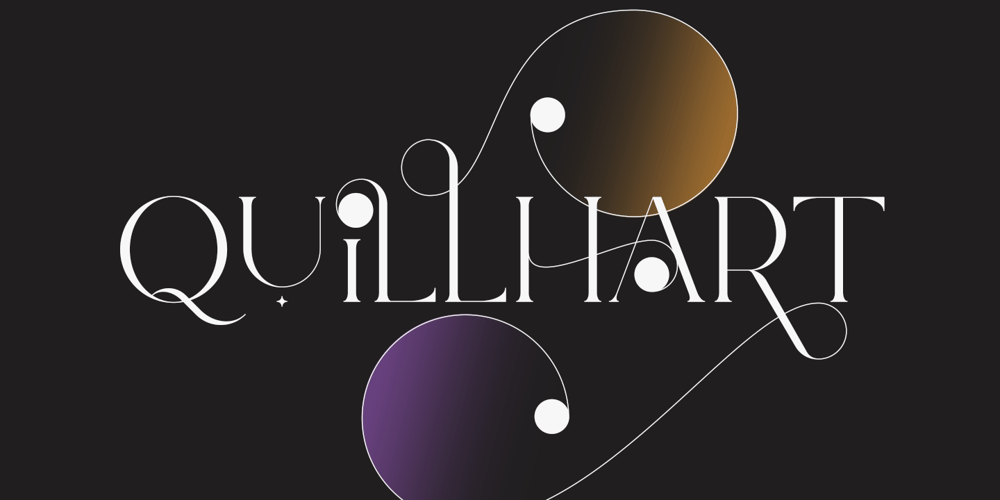
Quillhart Font Family was designed by Vladimir Fedotov, Plamen Petrov and published by VP Creative Shop. Quillhart contains 2 styles and family package options. Introducing Quillhart, a delightful and versatile serif logo font that exudes creativity and charm. With over 150 ligature glyphs and alternate characters, this font offers a wide range of design possibilities, allowing you to craft unique and visually stunning logos and brand identities.Quillhart goes above and beyond with its extensive collection of 52 swashes, offering you the opportunity to add elegant and decorative elements to your text. These swashes effortlessly elevate your designs, giving them a touch of sophistication and individuality.